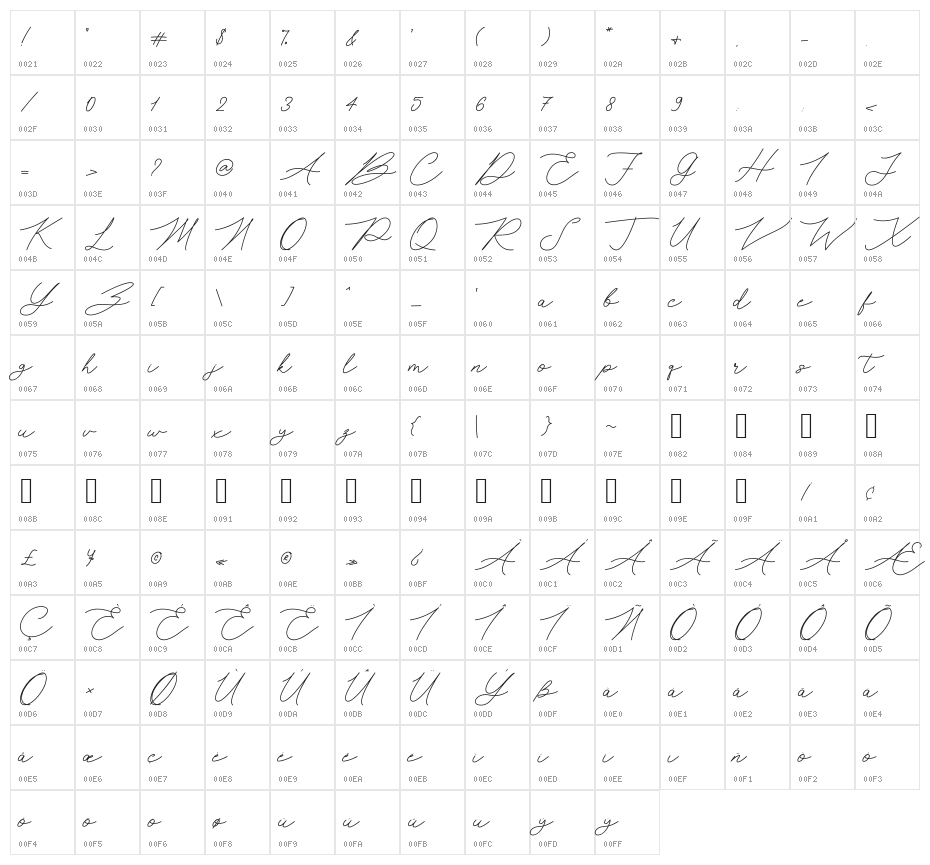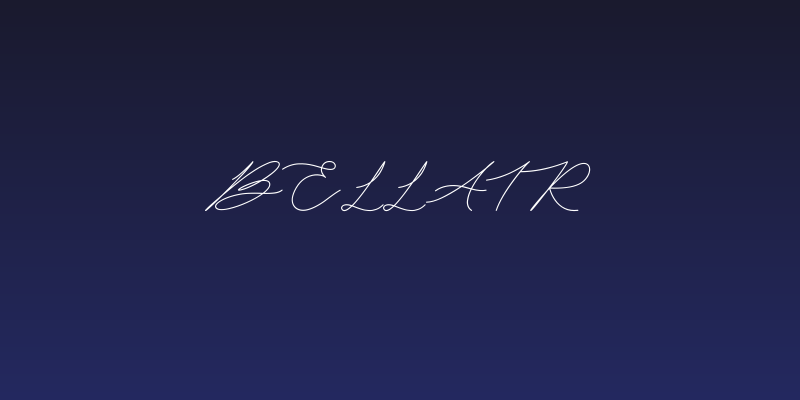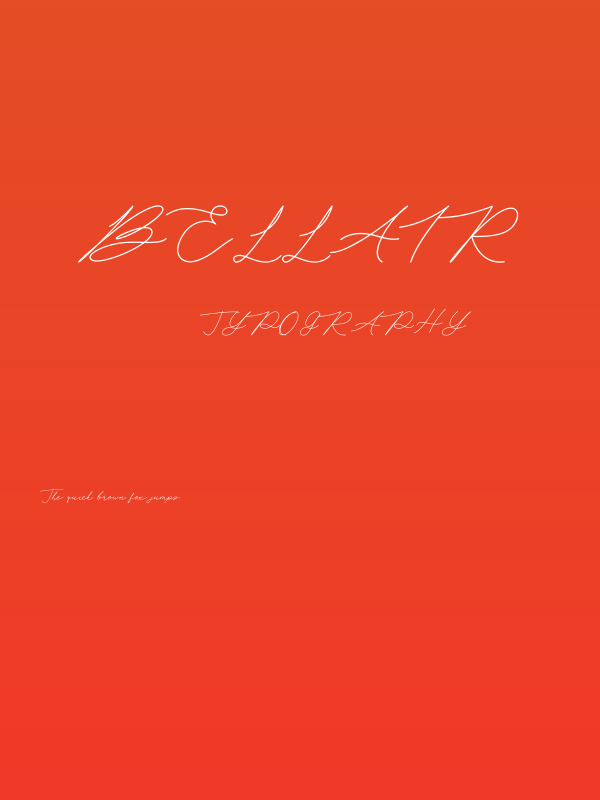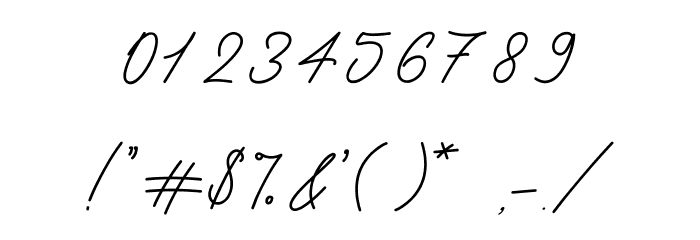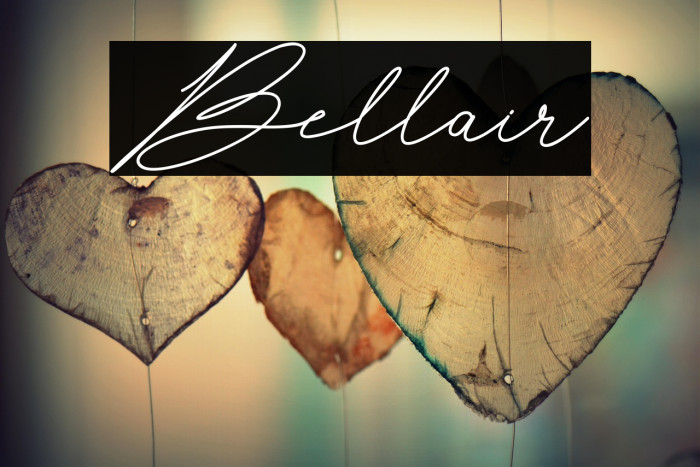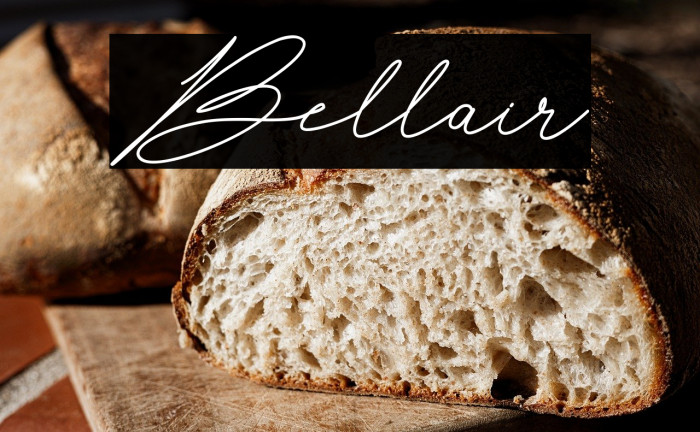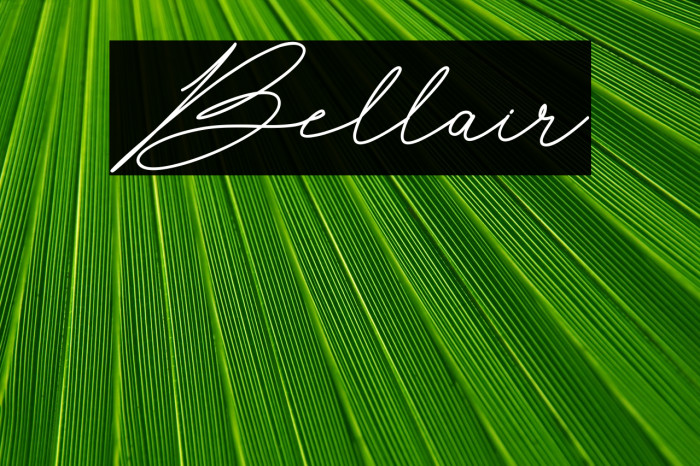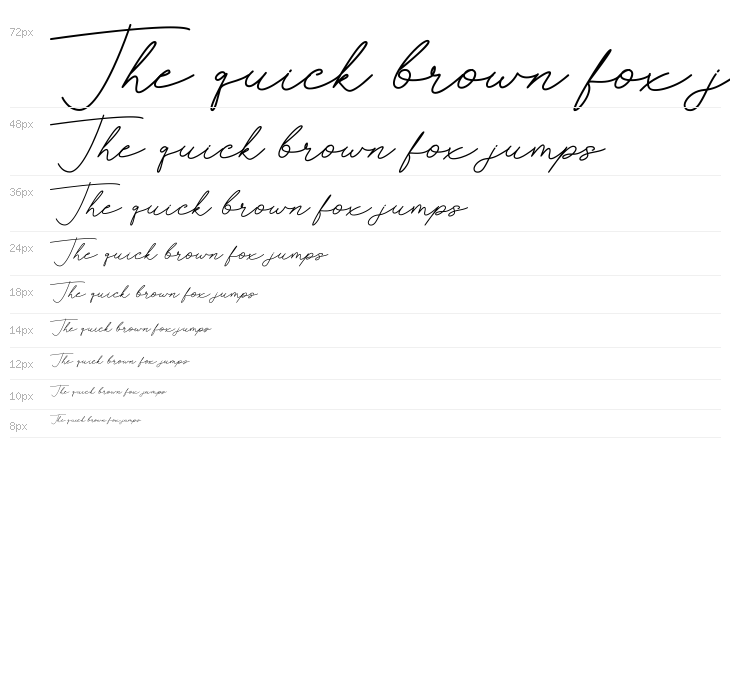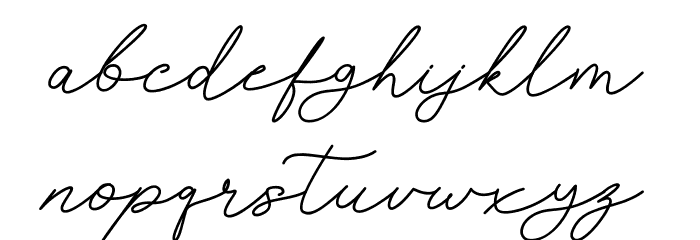
Bellair Font
Bellair Description
This elegant script font features a flowing, cursive style with smooth, continuous strokes that mimic natural handwriting. The uppercase letters are slightly larger and more ornate, while the lowercase letters maintain a consistent, graceful flow. The numerals are clear and easy to read, maintaining the same cursive style. Special characters are integrated seamlessly, adding to the font's versatility. The overall appearance is sophisticated and stylish, making it suitable for a variety of formal and creative applications.
| Proposed Projects | Ideal for wedding invitations, greeting cards, branding, and elegant logos. |